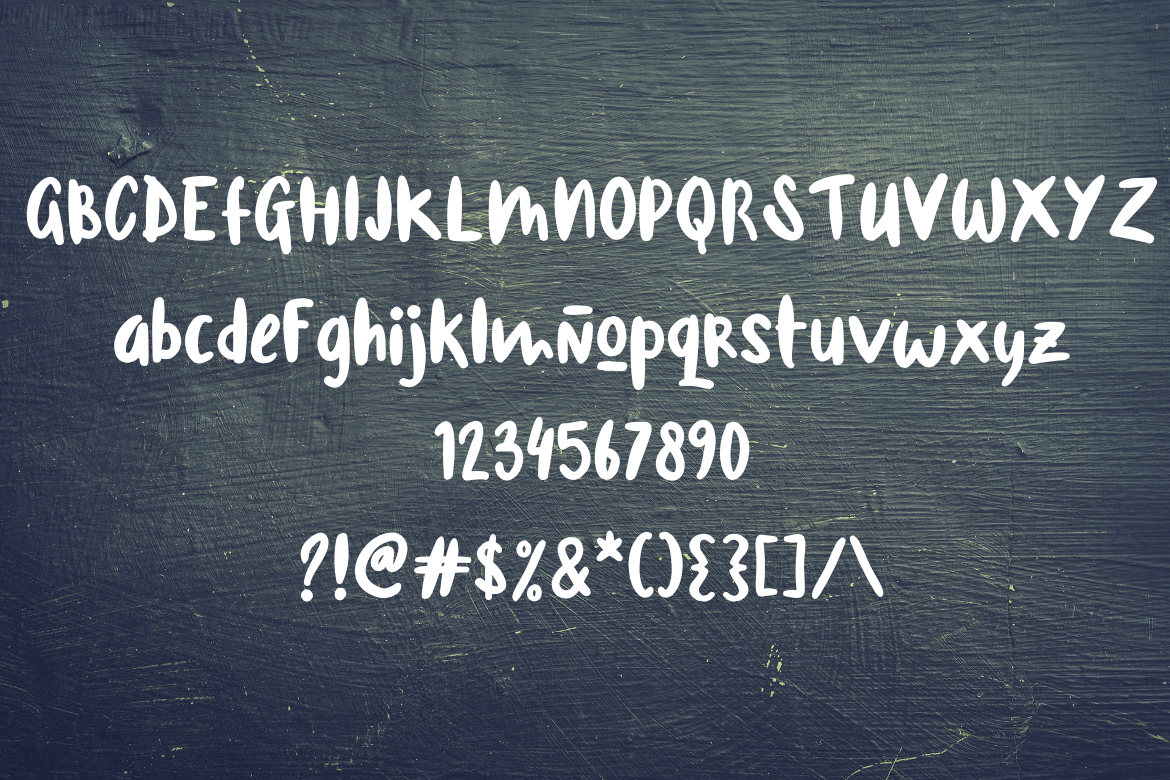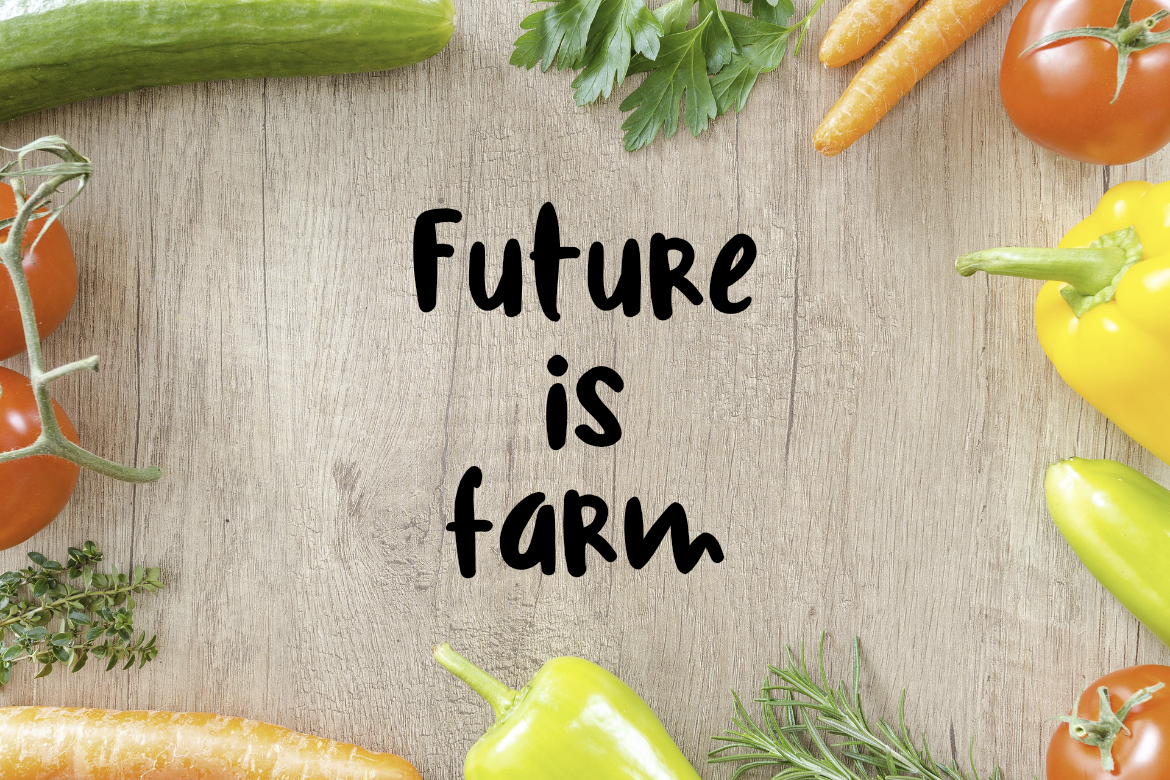
Genoa Farm Font: A Bold and Friendly Typeface for Your Design Needs
Are you looking for a font that exudes warmth, friendliness, and trust? Look no further than the Genoa Farm Font. This bold and fun typeface is perfect for designers and crafters who want to add a personal touch to their branding, packaging, or marketing materials. In this article, we’ll take a closer look at the Genoa Farm Font, its features, and how you can use it to elevate your design game.
What is Genoa Farm Font?
Genoa Farm Font is a display font designed to make a statement. Its bold and playful design makes it perfect for headlines, titles, and short phrases. The font’s warm and inviting feel makes it ideal for brands that want to convey a sense of friendliness and approachability. Whether you’re designing a logo, business card, or packaging, Genoa Farm Font is a great choice.
Key Features of Genoa Farm Font
- Bold and Fun Design: Genoa Farm Font is a bold and playful typeface that’s sure to grab attention.
- Warm and Inviting Feel: The font’s warm and inviting feel makes it perfect for brands that want to convey a sense of friendliness and approachability.
- Unlimited Design Potential: With Genoa Farm Font, you can create a wide range of designs, from simple and elegant to bold and playful.
- Perfect for Branding: The font’s bold and fun design makes it perfect for branding, packaging, and marketing materials.
Who Can Use Genoa Farm Font?
Genoa Farm Font is perfect for designers, crafters, and businesses who want to add a personal touch to their designs. Here are some examples of who can use this font:
- Graphic Designers: Genoa Farm Font is a great addition to any graphic designer’s toolkit. Use it to create stunning logos, business cards, and brochures.
- Crafters: If you’re a crafter who loves to create handmade products, Genoa Farm Font is a great choice for your branding and packaging needs.
- Small Business Owners: Small business owners can use Genoa Farm Font to create a unique and memorable brand identity.
How to Use Genoa Farm Font
Using Genoa Farm Font is easy. Here are some tips to get you started:
- Pair it with Other Fonts: Genoa Farm Font pairs well with other fonts, such as sans-serif fonts like Arial or Helvetica.
- Use it for Headlines: Use Genoa Farm Font for headlines and titles to grab attention.
- Experiment with Colors: Genoa Farm Font looks great in a variety of colors, from bold and bright to soft and pastel.
In conclusion, Genoa Farm Font is a bold and fun typeface that’s perfect for designers and crafters who want to add a personal touch to their designs. Its warm and inviting feel makes it ideal for brands that want to convey a sense of friendliness and approachability. With its unlimited design potential, Genoa Farm Font is a great addition to any design toolkit.